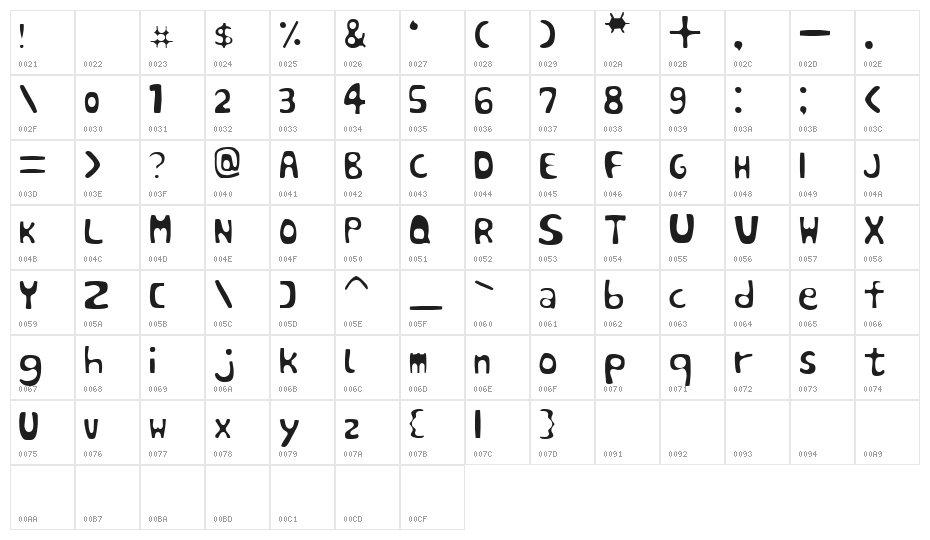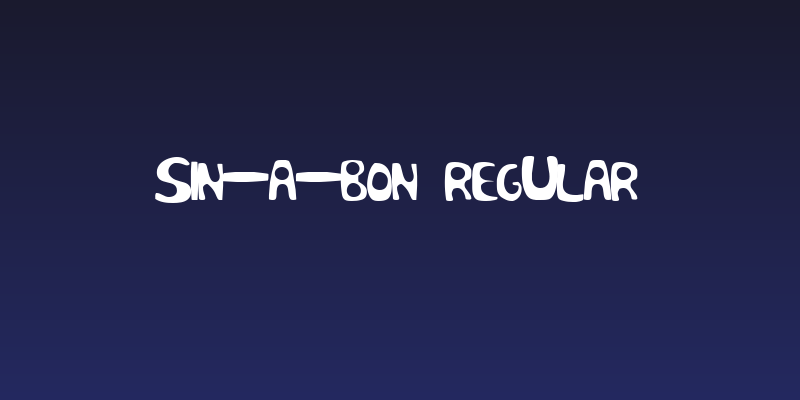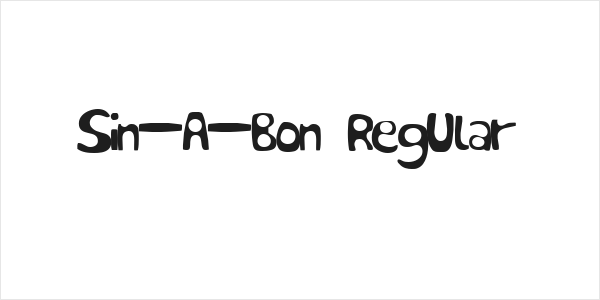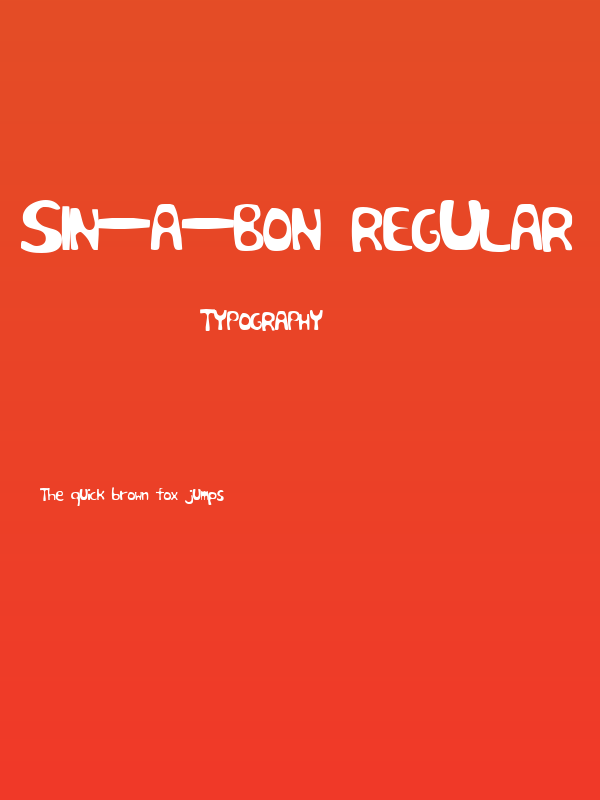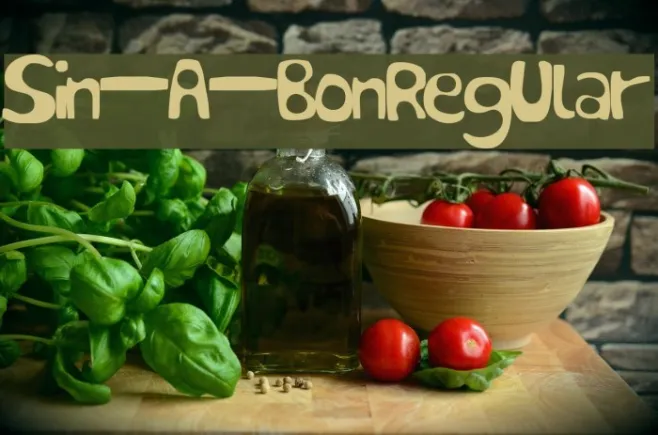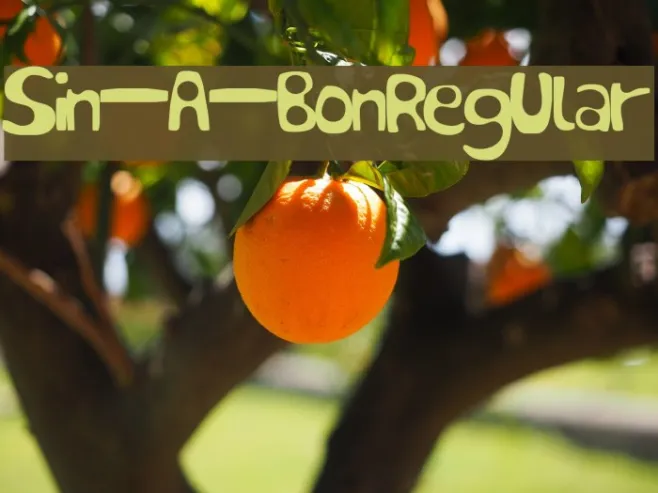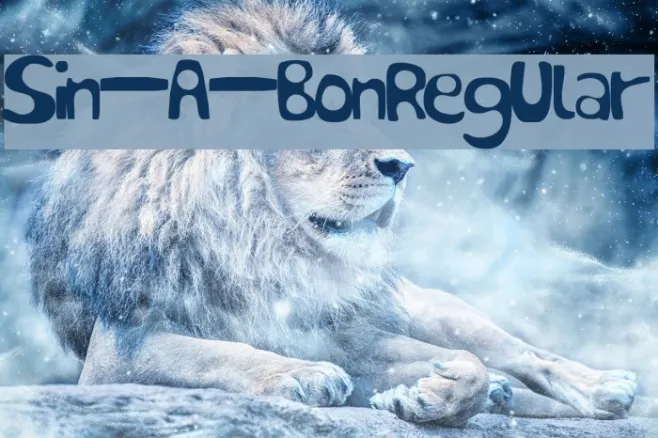
Sin-A-Bon Regular Font
Sin-A-Bon Regular Description
This font features a playful and bold design with a whimsical touch. The characters are rounded and slightly irregular, giving them a hand-drawn appearance. The uppercase letters are robust and prominent, while the lowercase letters maintain a consistent style with a slightly more relaxed form. The numbers are bold and easy to read, matching the overall playful aesthetic. Special characters are creatively designed, adding to the font's unique personality. This font is ideal for projects that require a fun and engaging look.
| Proposed Projects | Ideal for children's books, playful branding, posters, and creative design projects. |